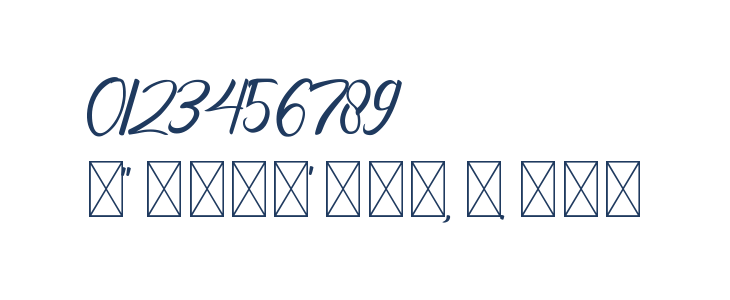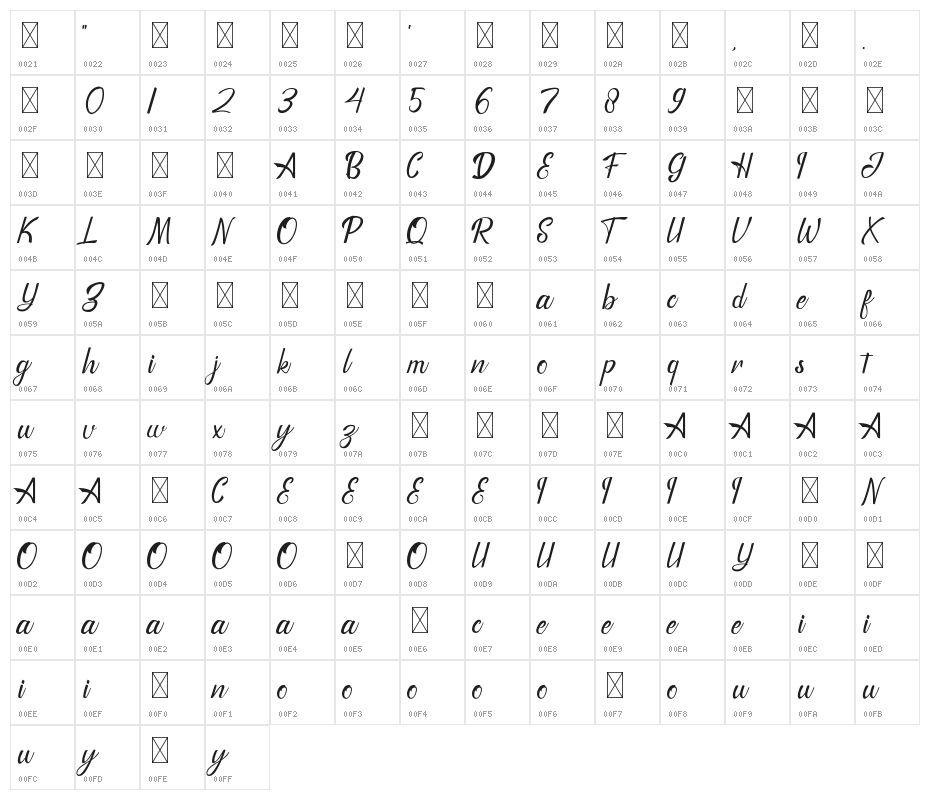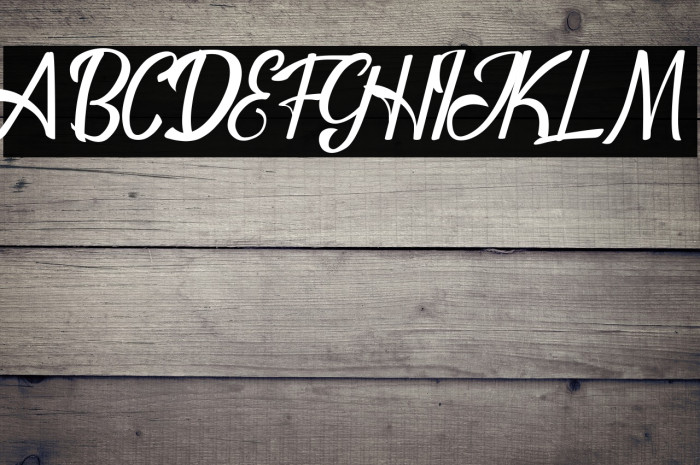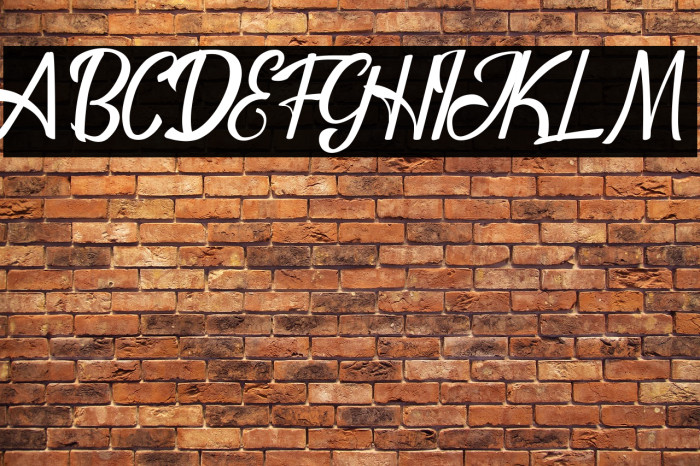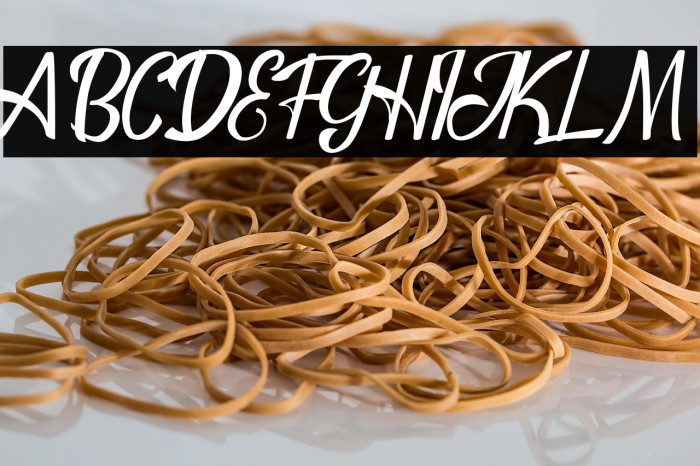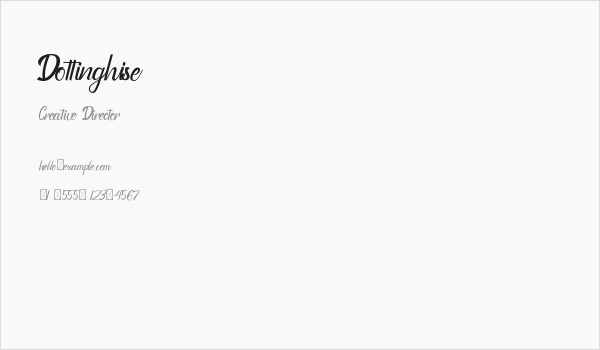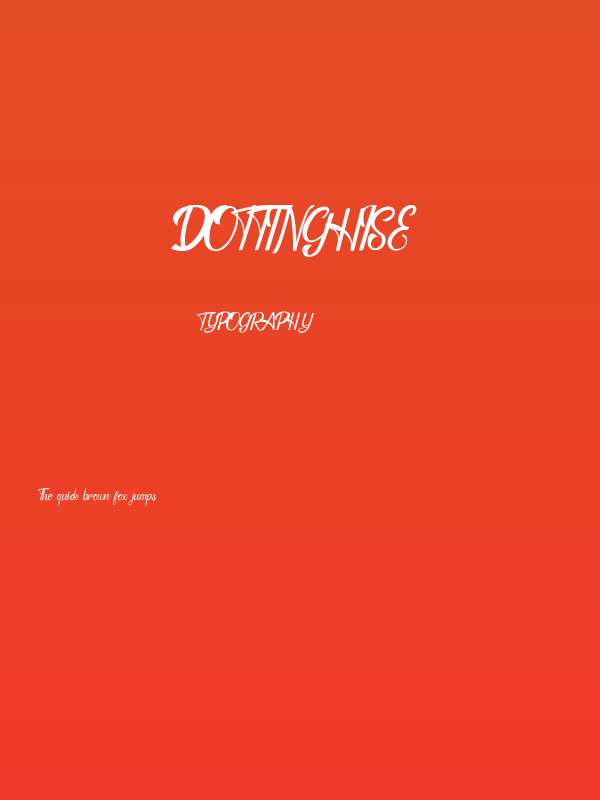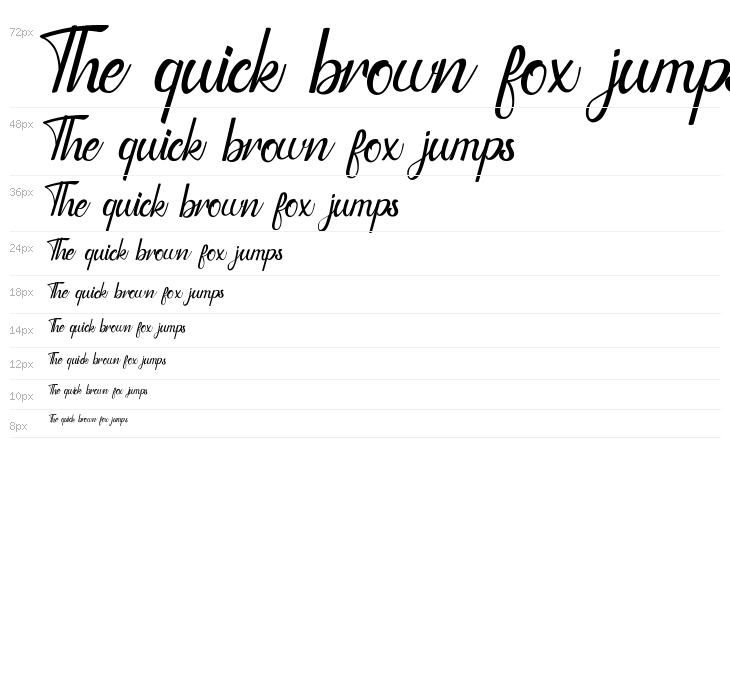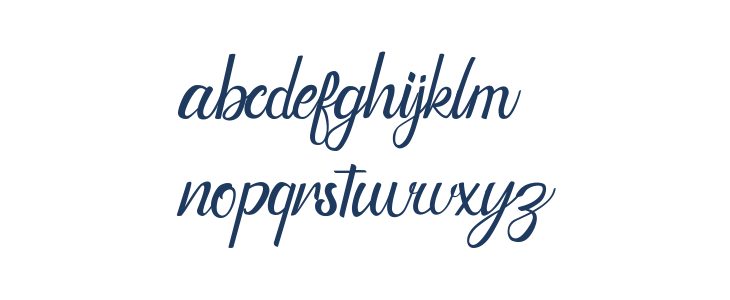
Dottinghise Font
Dottinghise Description
This font features a dynamic and flowing script style, characterized by its elegant and cursive letterforms. The uppercase letters are bold and sweeping, with a sense of movement and flair, while the lowercase letters maintain a consistent fluidity and grace. The numerals are designed with a similar cursive style, ensuring a cohesive look across all characters. The font's overall appearance is both sophisticated and approachable, making it suitable for a variety of creative applications. The special characters are seamlessly integrated, maintaining the font's distinctive style.